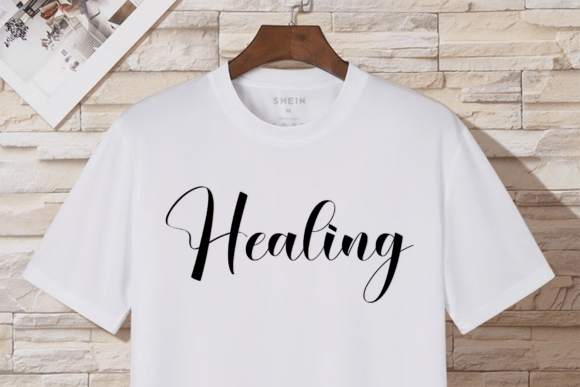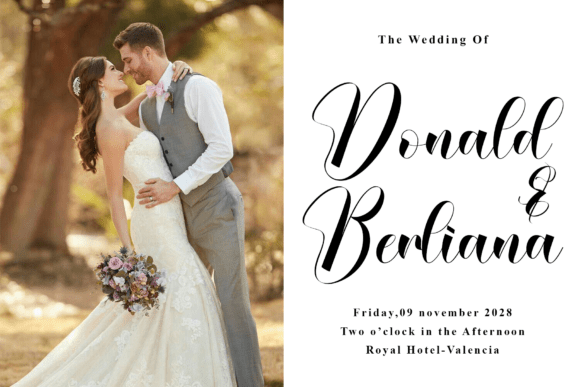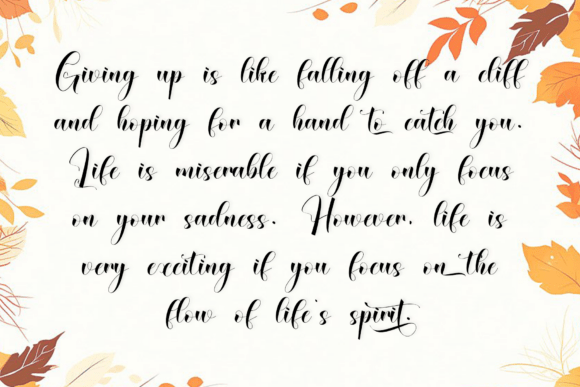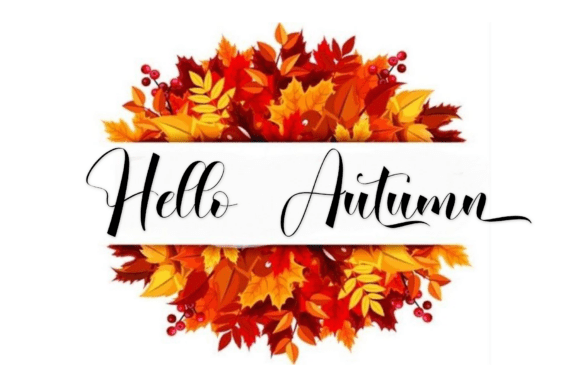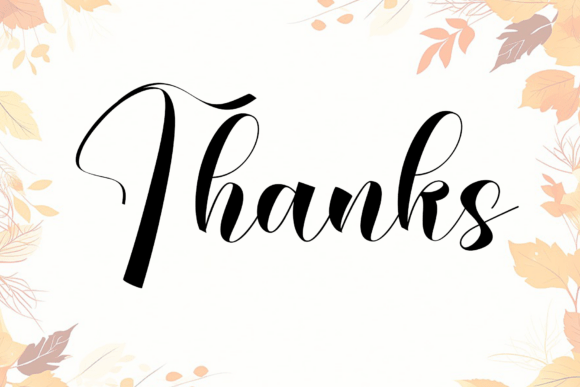
Introducing Beautiful Autumn Font: Elevate Your Designs with Elegance
As the seasons change and autumn leaves start to fall, designers and crafters are on the lookout for fonts that capture the essence of this picturesque time of year. If you’re searching for a font that embodies the elegance and charm of autumn, look no further than Beautiful Autumn Font. This stunning handwritten font is perfect for a variety of design projects, from wedding invitations to business cards, and is sure to add a touch of sophistication to any creation.
What Makes Beautiful Autumn Font So Special?
Beautiful Autumn Font is a stylish and incredibly elegant handwritten font that is sure to impress. Its flowing lines and delicate curves evoke the feeling of fall leaves and cozy sweaters, making it the perfect choice for designers who want to add a touch of autumn charm to their work. Whether you’re creating wedding invitations, thank you cards, quotes, greeting cards, logos, or business cards, this font is sure to make your designs stand out.
Key Features of Beautiful Autumn Font
- Handwritten Elegance: Beautiful Autumn Font is a true handwritten font, with each letter and character carefully crafted to create a sense of elegance and sophistication.
- PUA Encoded: This font is PUA (Private Use Area) encoded, which means that you can access all of the glyphs and alternates with ease. This makes it simple to customize your designs and add your own personal touch.
- Versatile: Beautiful Autumn Font is perfect for a wide range of design projects, from wedding invitations and greeting cards to logos and business cards.
Beautiful Autumn Font is a must-have for designers and crafters who want to add a touch of elegance and sophistication to their work. Whether you’re creating digital designs or handmade crafts, this font is sure to inspire. Here are just a few ways you can use Beautiful Autumn Font:
- Wedding Invitations: Create beautiful and elegant wedding invitations that set the tone for a special day.
- Greeting Cards: Add a personal touch to your greeting cards with this stunning handwritten font.
- Logos and Branding: Use Beautiful Autumn Font to create a logo or brand identity that is both elegant and sophisticated.
- Business Cards: Stand out from the crowd with business cards that feature this beautiful font.
Tips for Using Beautiful Autumn Font
Here are a few tips for getting the most out of Beautiful Autumn Font:
- Experiment with Different Sizes: This font looks great in a variety of sizes, from small and delicate to large and bold.
- Play with Color: Beautiful Autumn Font is perfect for use with a range of colors, from rich autumnal hues to bright and bold shades.
- Mix and Match: Don’t be afraid to mix and match Beautiful Autumn Font with other fonts to create a unique and eye-catching design.
Beautiful Autumn Font is a truly special font that is sure to elevate your designs and add a touch of elegance and sophistication. With its flowing lines, delicate curves, and PUA encoding, this font is perfect for designers and crafters who want to create beautiful and eye-catching designs. Whether you’re working on a wedding invitation, greeting card, logo, or business card, Beautiful Autumn Font is the perfect choice.